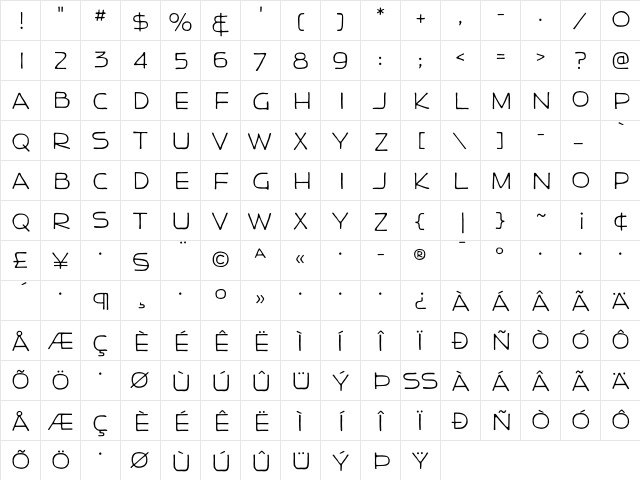
Neutra Display Drafting Regular Font Preview
Neutra Display Drafting Regular
Neutra Display Drafting Regular Font Details
| Designer | Christian Schwartz |
Design Context for Neutra Display Drafting Typeface
Neutra Display Drafting is built around its visual character rather than neutral utility — its distinctive forms are designed to make an impression at display sizes.
Font Pairing: Pair with a clean neutral sans-serif for body copy to let Neutra Display Drafting's character lead without overwhelming the composition.
Pro Tip: Treat Neutra Display Drafting as the centrepiece of your typographic hierarchy. One strong heading set in a decorative face can carry an entire layout.